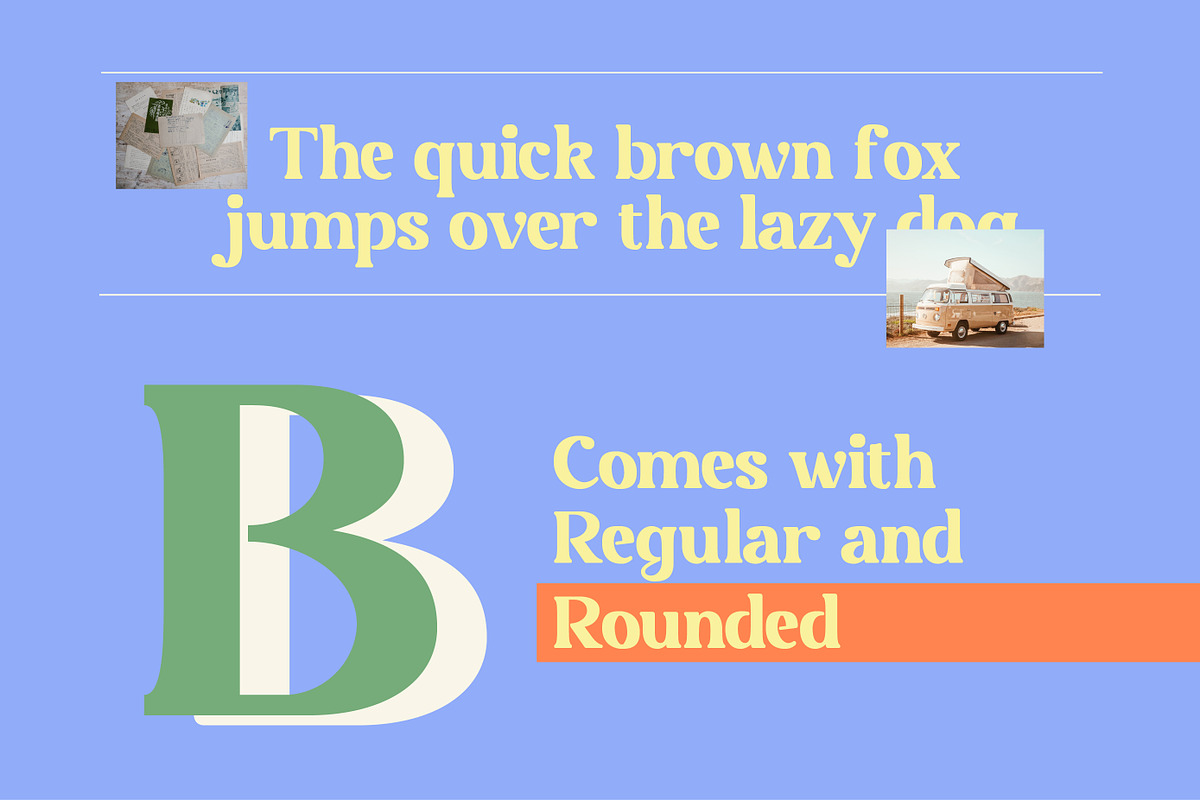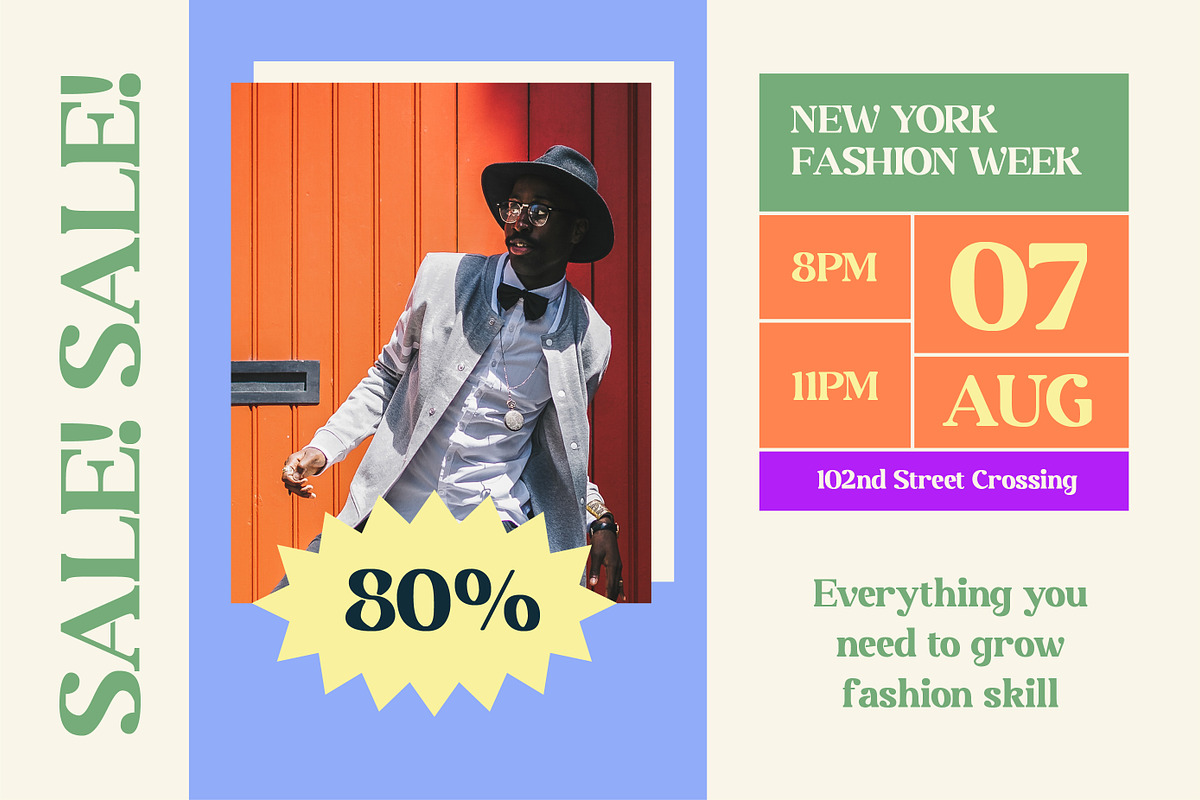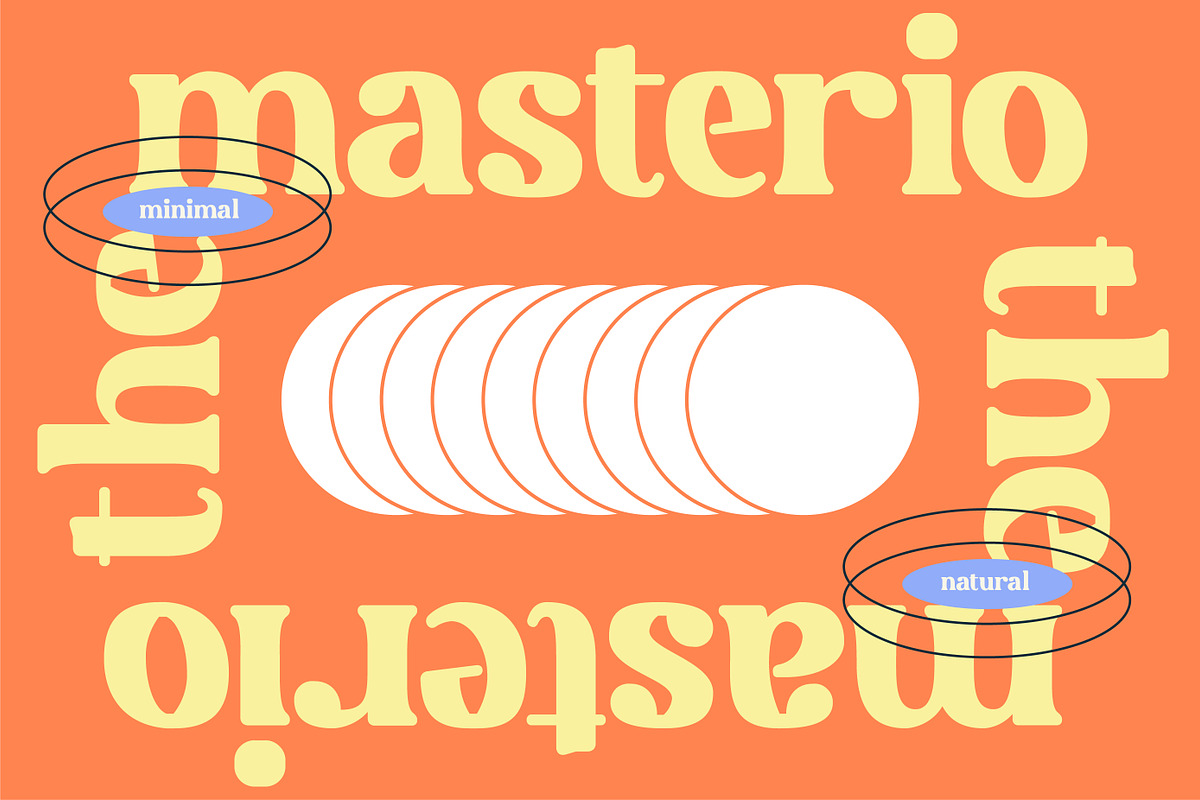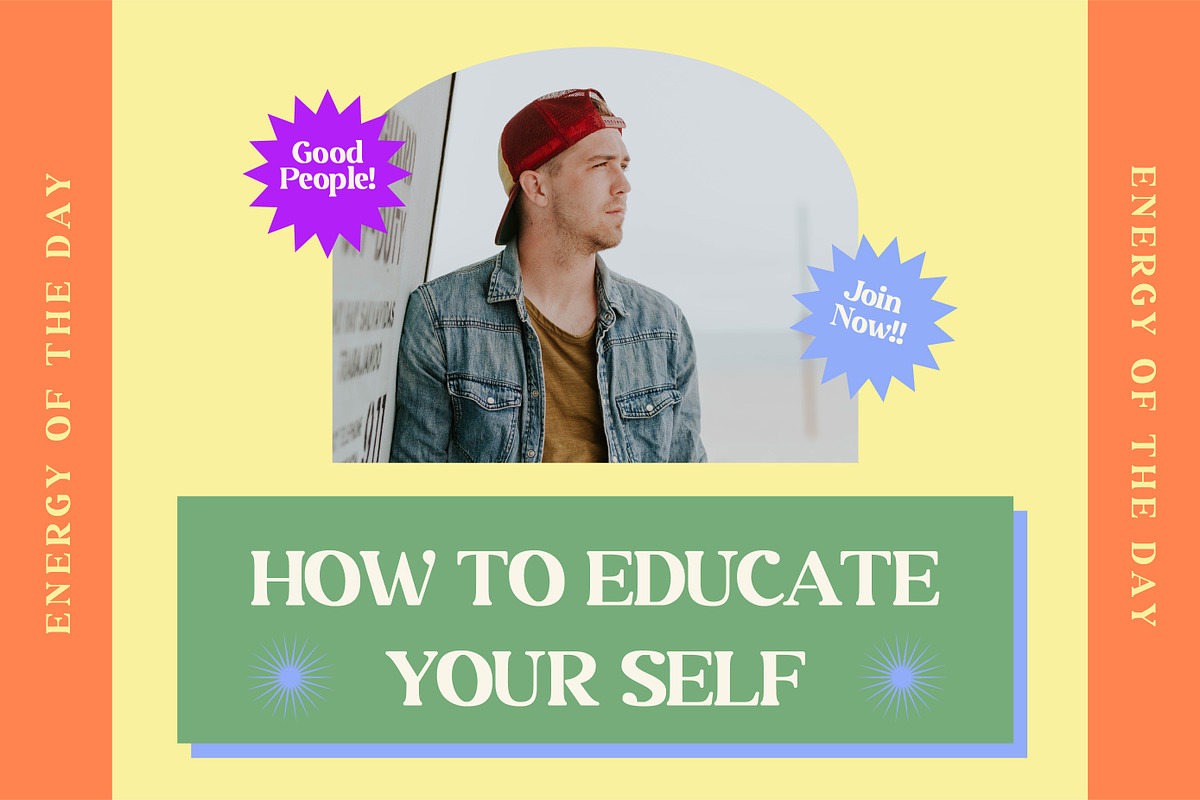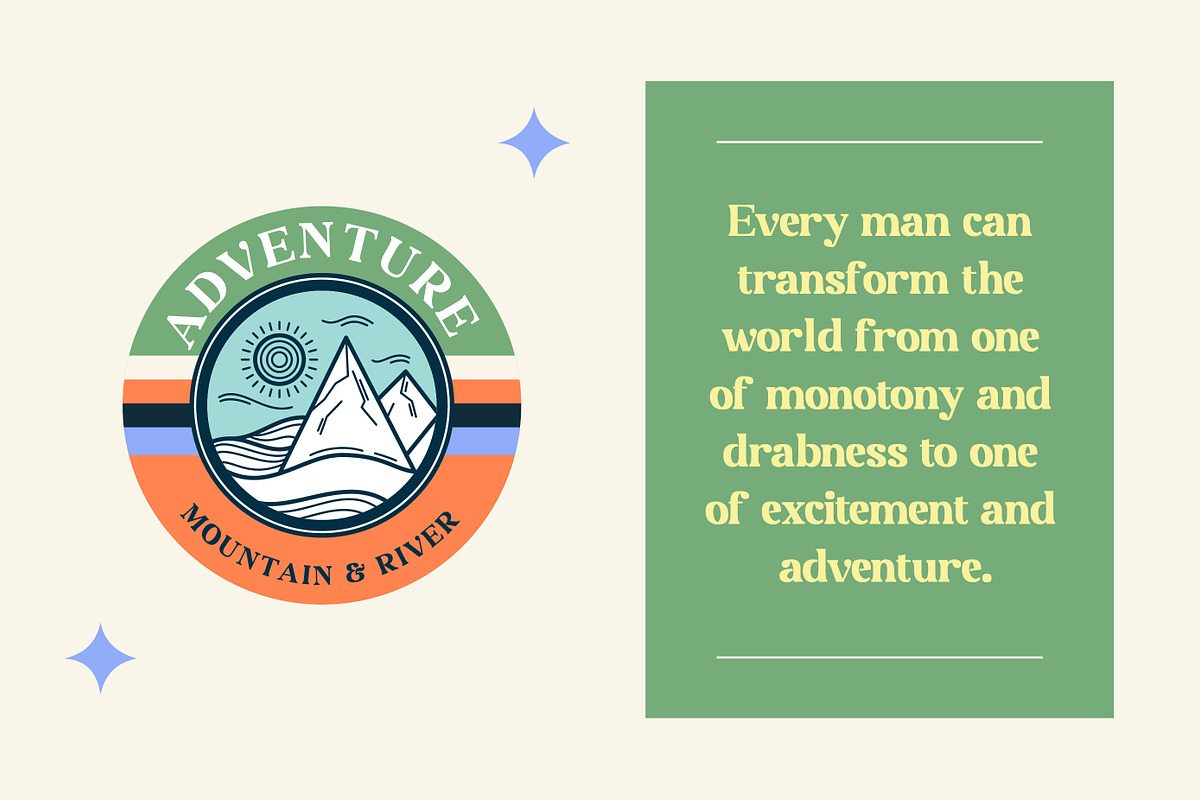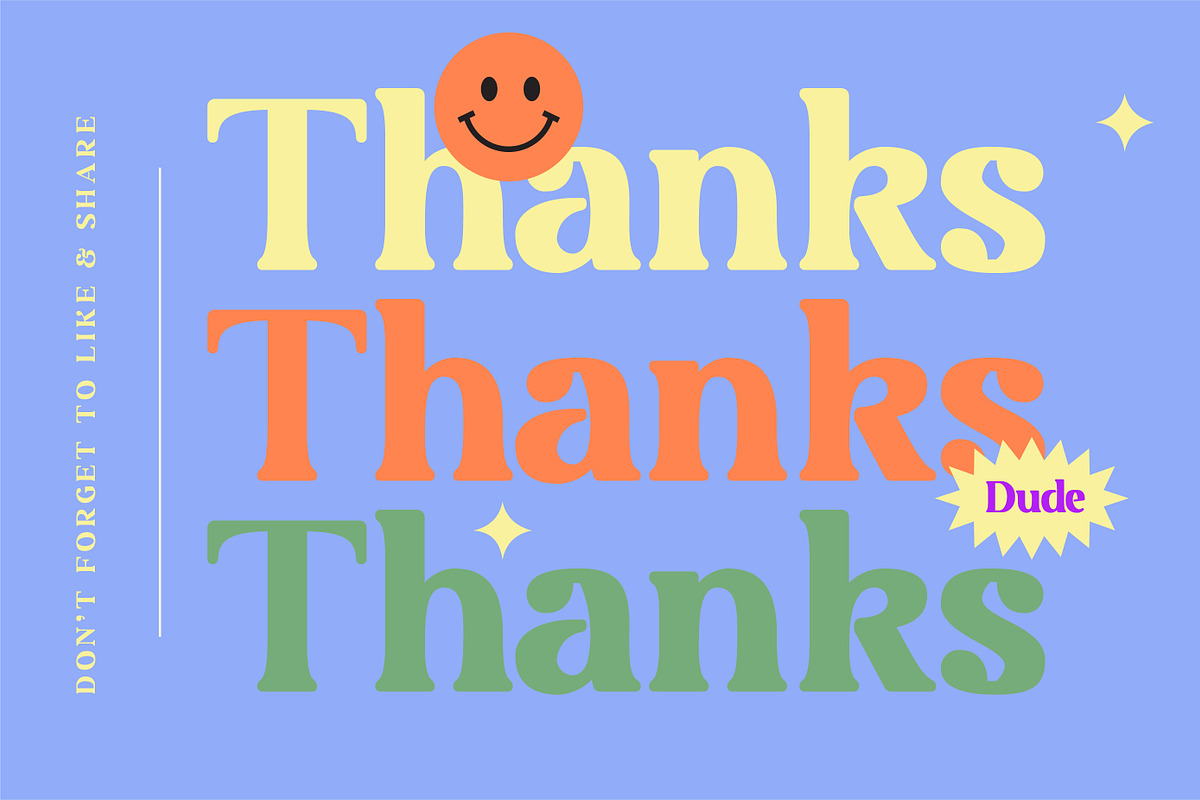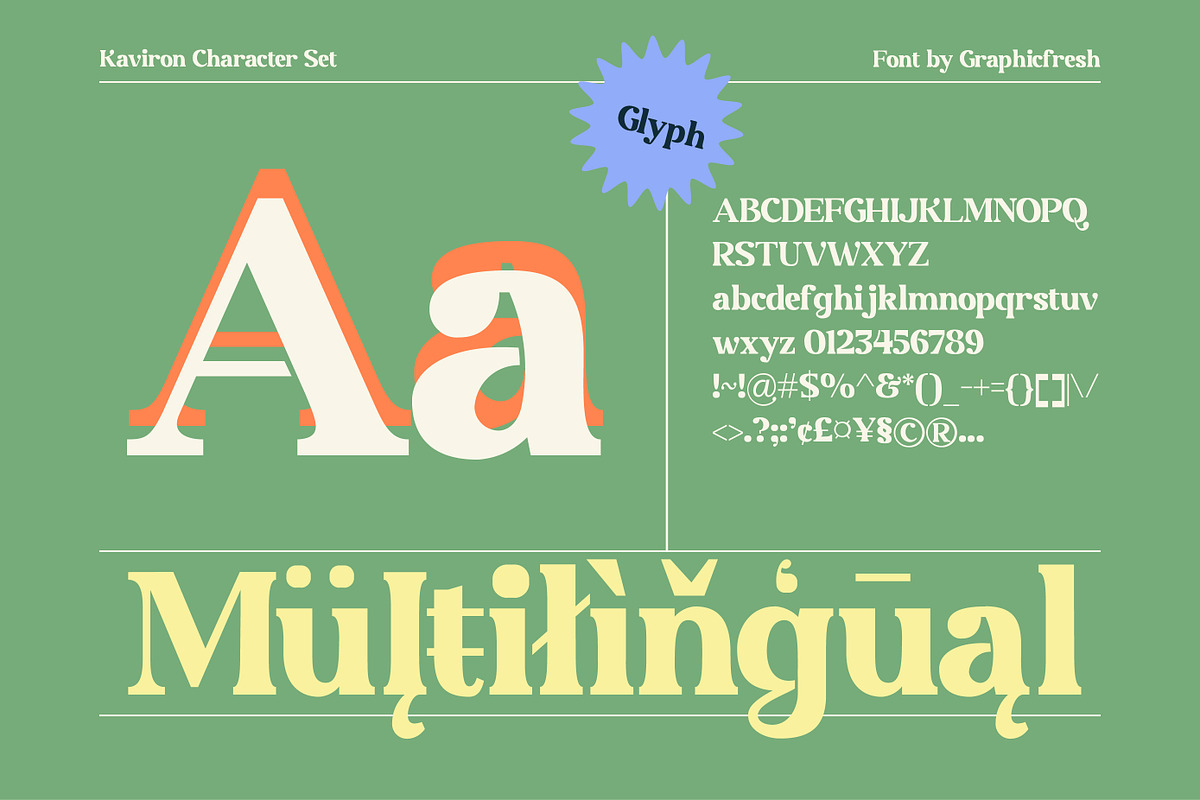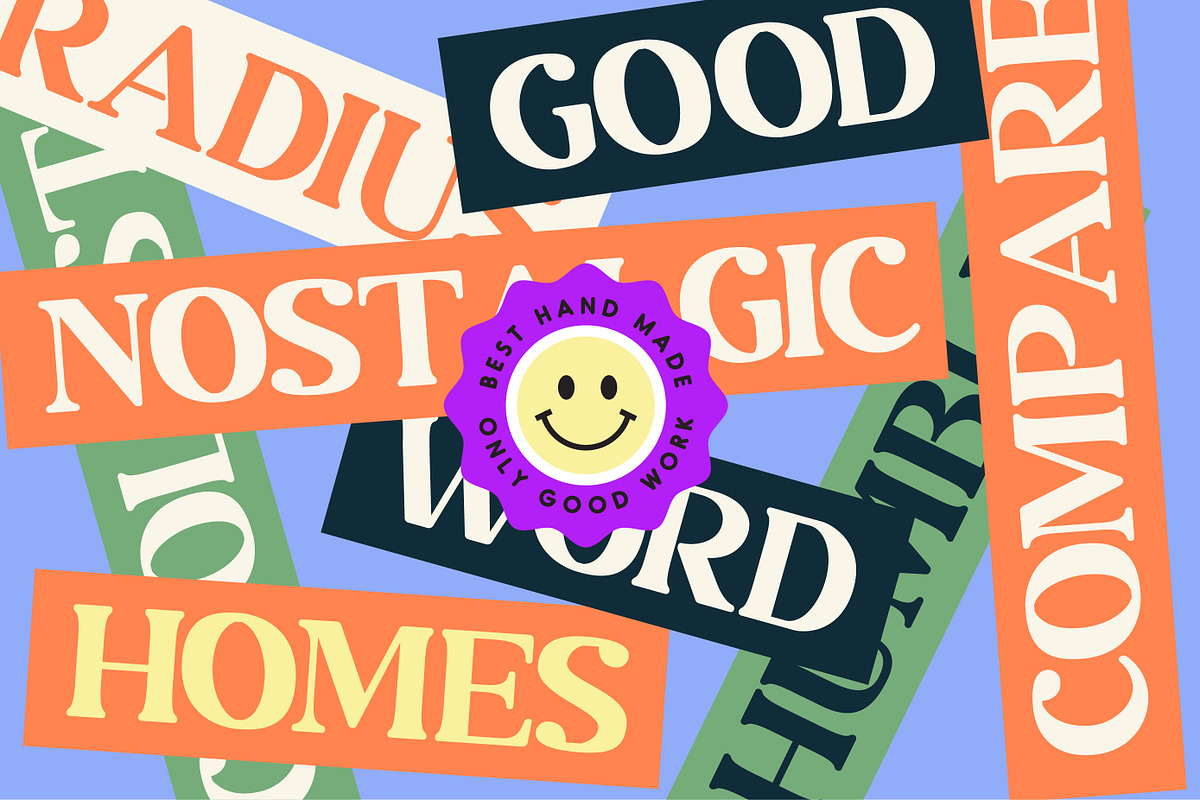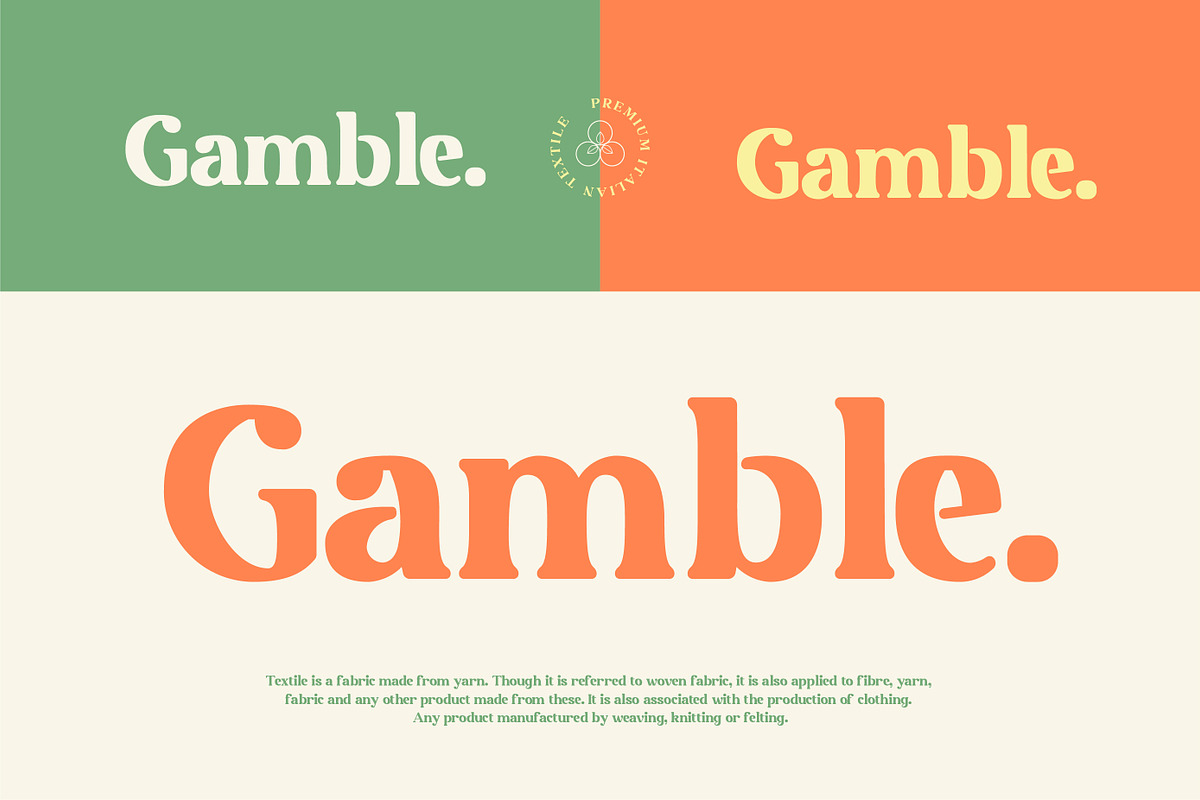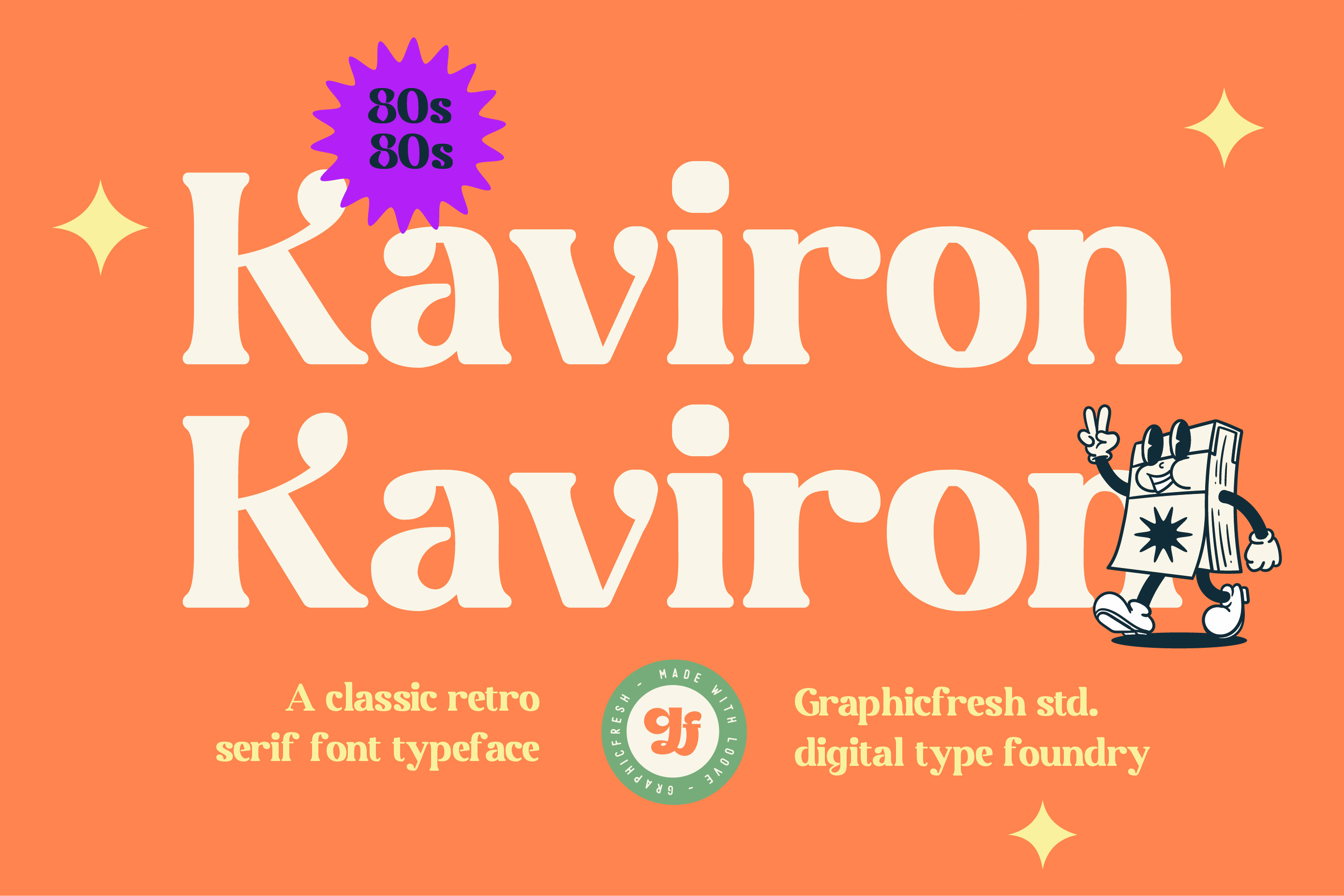
Kaviron Retro Font
Kaviron is the name of a street in a Greek city. A city that has many civilizations. This font is designed in a more classic way. So it has its own experience in using it. This font is synonymous with 70s or 80s style design visuals, Bold and strong. I hope you enjoy using this font and can come up with clever and brilliant ideas in your designs.